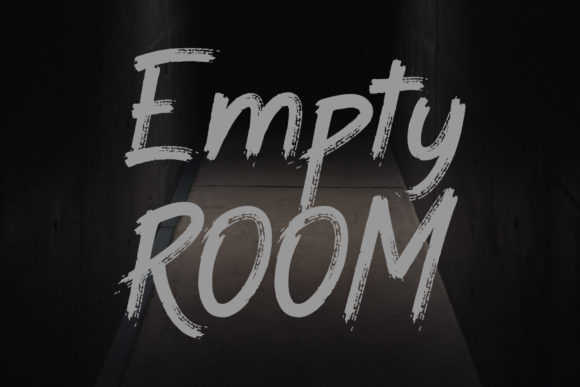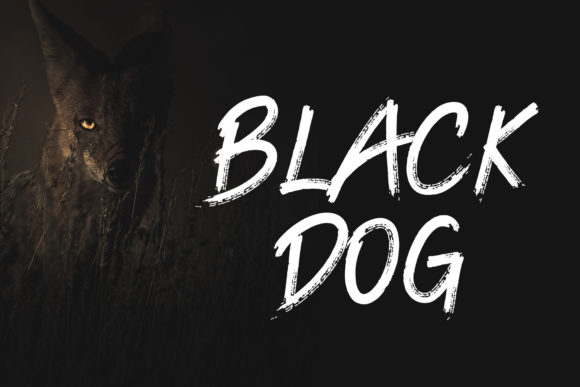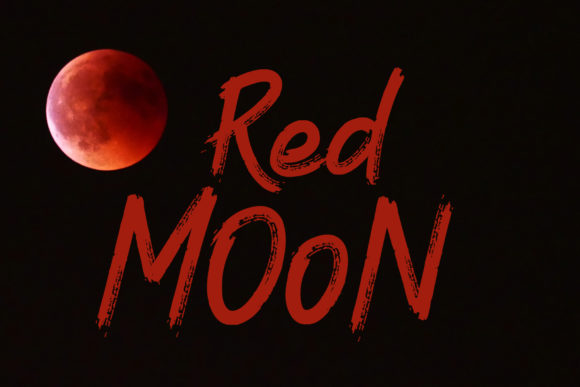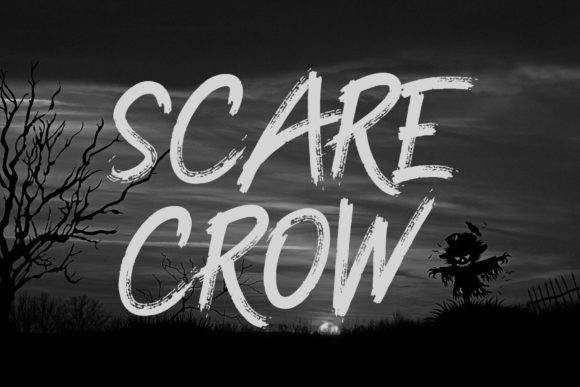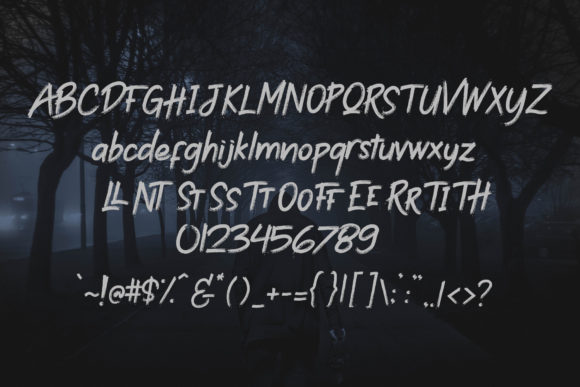
Grill Shadow Font
About Grill Shadow Font
Grill Shadow is a scary, creepy handwritten font, created by using a brush pen. Clean and a little bit quirky, this font is the perfect fit for all of your logos, branding, social media, and crafty DIY projects.